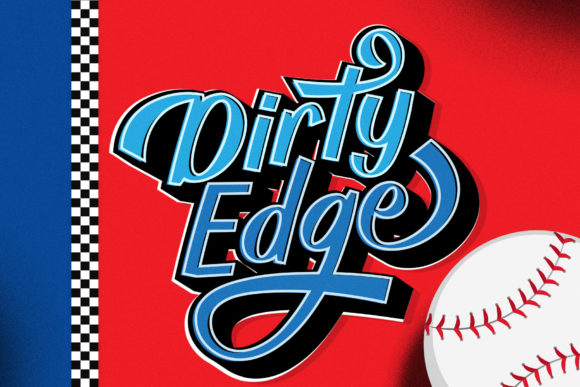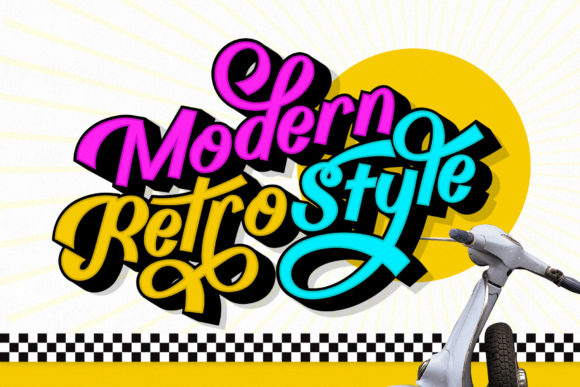
Billy Coaster Font
db-ku.com - Script & Handwritten -- Billy Coaster is a gorgeous and bold handwritten font, crafted to give your headlines and logotype projects a retro touch. This font reads as strong, confident, and dynamic and can add tons of nostalgic character to your designs.